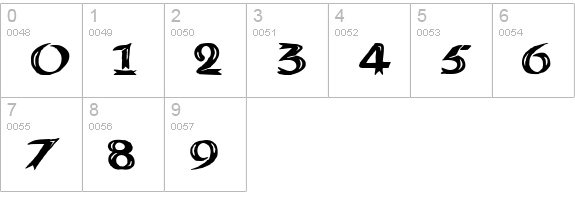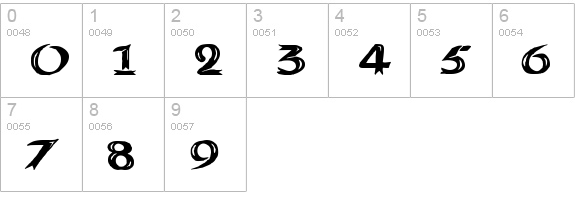
Kelt Caps Freehand Font Details
Kelt Caps Freehand font is a stunningly unique and versatile typeface that embodies the essence of artistic freedom. With its freehand design, each letter is intricately crafted with fluid strokes and spontaneous curves, capturing the spontaneity and creativity of hand-drawn calligraphy. This font exudes a sense of organic authenticity, as if it were created by an artist's brush on a canvas. Its elegant and slightly imperfect letterforms give a natural and human touch to any design project, adding a sense of warmth and personality. Kelt Caps Freehand font is perfect for various creative endeavors, including logo designs, branding, packaging, invitations, and more. Its distinctive appearance ensures that your work will stand out from the crowd, leaving a lasting impression on viewers. What makes this font even more remarkable is that it is freely available for download at FontsMarket.com. This means that you can easily access and utilize this remarkable typeface without any cost, allowing you to explore your creativity without any limitations. Whether you're a professional designer or an enthusiast looking to add a touch of artistic flair to your projects, Kelt Caps Freehand font is the ideal choice. Its seamless integration into various design software makes it a breeze to incorporate into your work, enabling you to effortlessly achieve the desired aesthetic. Embrace the beauty of freehand calligraphy with Kelt Caps Freehand font, and let your creativity soar to new heights. Download it for free at FontsMarket.com and unlock a world of endless design possibilities.